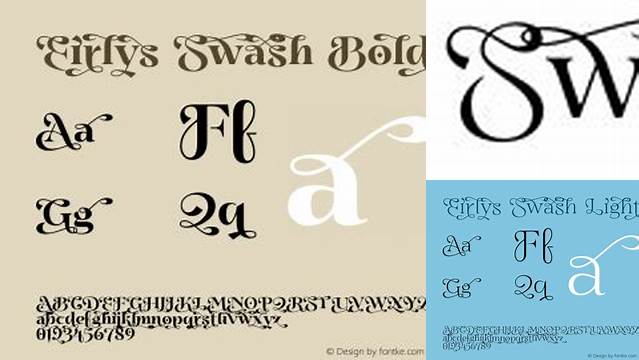
Get Eirlys Swash Font Free: Your Ultimate Guide
Hey guys! Are you on the hunt for a beautiful, flowing font that adds a touch of elegance and personality to your projects? Look no further than the Eirlys Swash font! This stunning typeface is perfect for a wide range of creative endeavors, from branding and logos to invitations and social media graphics. In this comprehensive guide, we'll dive deep into everything you need to know about the Eirlys Swash font, including how to snag a free download, explore its unique features, and discover how you can use it to elevate your designs. Buckle up, because we're about to embark on a font-tastic journey!
Unveiling the Beauty: Features of the Eirlys Swash Font
So, what makes the Eirlys Swash font so special? Well, it's all about those gorgeous swashes! Swashes are the extra flourishes and embellishments that add a touch of flair and personality to the letters. The Eirlys Swash font boasts a collection of beautifully crafted swashes that can be used to create stunning typographic designs. These swashes can be found in the alternate characters or glyphs of the font. By accessing these glyphs, you can easily add elegant swirls and curves to your text. Besides swashes, the Eirlys Swash font often has other features to enhance its versatility. It may include multiple weights, allowing you to choose from a variety of thicknesses and styles to suit your project's needs. Also, the font's design typically ensures excellent readability, which is crucial. Its clean lines and graceful curves make it a pleasure to read. The font may also have excellent language support, including the glyphs and character sets needed to display and format a variety of languages, including those with special characters or accents. And of course, the aesthetic of the Eirlys Swash font, is all about elegance. Its smooth, flowing lines and graceful curves make it an excellent choice for projects that require a touch of sophistication and a romantic feel.
Eirlys Swash Font: Perfect for Creative Projects
Now, let's talk about where you can use the Eirlys Swash font to make your designs pop! This versatile font is perfect for a wide range of creative projects. If you're a designer working on a branding project, the Eirlys Swash font can be a star. Use it to create a memorable logo that reflects your brand's identity. The elegant swashes will surely catch your audience's eye. For invitations, this font is a match made in heaven! The graceful lines of the font create the perfect romantic vibe for wedding invitations, baby shower announcements, or other special event stationery. For social media, the Eirlys Swash font is perfect for creating stunning social media graphics, quotes, or Instagram posts that will grab attention and make your content stand out. Are you a blogger or content creator? The Eirlys Swash font is perfect for your blog headers, and to add a touch of personality to your articles and posts. It's also a great choice for book covers, packaging design, website headers, or even creating unique handwritten-style quotes. Also, it can create beautiful and eye-catching business cards, offering a professional and creative first impression. There is no doubt that the Eirlys Swash font is a versatile choice for many different design projects.
Exploring Alternatives: Other Swash Fonts to Consider
While the Eirlys Swash font is fantastic, it's always a good idea to explore alternatives. Here are some similar swash fonts that you might also enjoy: First, you can consider the font called 'Billionaire', which has elegant curves and decorative swashes, ideal for luxury branding and stylish designs. The next is called 'Honey Script', which is a sweet, handwritten-style font with lovely swashes that is perfect for wedding invitations and other feminine projects. There is also 'Great Vibes', a classic swash font inspired by vintage calligraphy, great for adding a touch of retro elegance to your designs. Or you can consider 'Playlist Script', a modern and playful swash font that works well for a wide variety of creative projects, from logos to social media graphics. These fonts, like the Eirlys Swash font, will give you that extra flavor to beautify your projects! The availability of these fonts might depend on your design software, or if you need to download them from reliable sources.
Mastering the Art of Typography with Eirlys Swash Font
Now that you've got the Eirlys Swash font installed and ready to go, let's talk about how to use it effectively in your designs. The most important aspect is pairing the font. Because the swashes can be quite prominent, it's crucial to pair the Eirlys Swash font with a simpler, more readable font for body text or headings. A good sans-serif font, like Open Sans or Lato, can work well for this. The contrast between the two fonts creates a balance and makes the design more visually appealing. Experiment with different sizes and weights of the Eirlys Swash font to find the right balance for your design. Use the font sparingly, typically for headings, titles, or short text passages. Avoid using it for large blocks of text, as it can be challenging to read. Consider the kerning of the font. Kerning is the space between the letters. The Eirlys Swash font can sometimes require manual kerning adjustments to ensure that the spacing between letters is visually pleasing. Pay attention to the context of your design. Is it a formal invitation, a casual social media post, or a professional website header? The Eirlys Swash font is versatile, but it's essential to consider the overall tone and message of your design before using the font. Experiment with color and effects. The Eirlys Swash font looks great when used with a variety of colors and effects. You can try using the font in white or light colors on a dark background for a modern and stylish look.
Eirlys Swash Font: A Final Word on its Enduring Appeal
In a world of ever-changing design trends, the Eirlys Swash font holds a special place. The font is still a favorite for several reasons. The font's design will make your design unique. The font brings creativity to many design projects. The font is easy to work with. The font gives your project the right touch of elegance. So, go out there, download the Eirlys Swash font, and start creating beautiful designs that will leave a lasting impression!